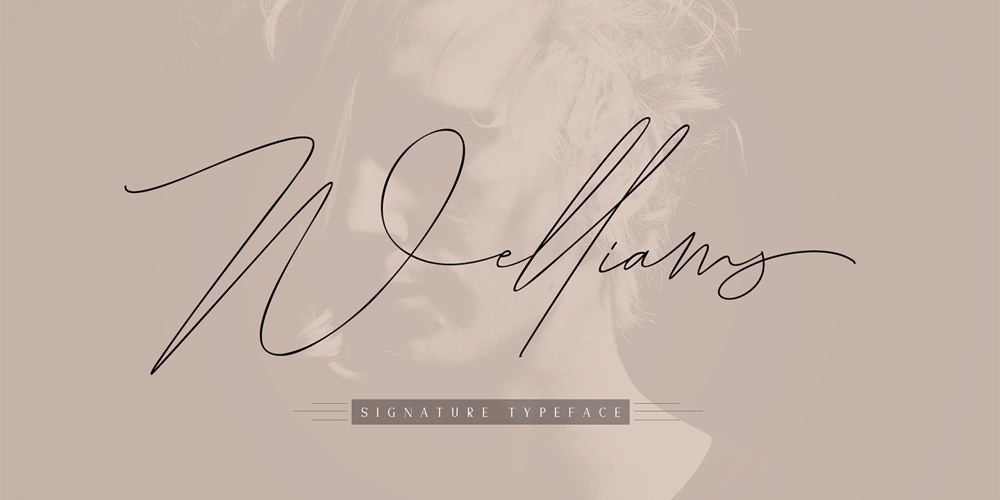
Welliams
Welliams font
Welliams Font Family was designed by Ayi Teiry and published by eyetype. Welliams contains 1 styles and family package options. Welliams a work that is purely a result of handwriting, has a natural characteristic. this is perfect for invitations, signatures, blogs, social media, business cards, product brands.Welliams has Stylistic standard, Stylistic Alternate, Stylistic Sets and ligatures. and includes uppercase and lowercase letters, numbers and punctuation marks.OpenType features can be accessed by using OpenType smart programs such as Adobe Photo Shop, Adobe Illustrator, Adobe Indesign, Corel Draw and Microsoft Office.